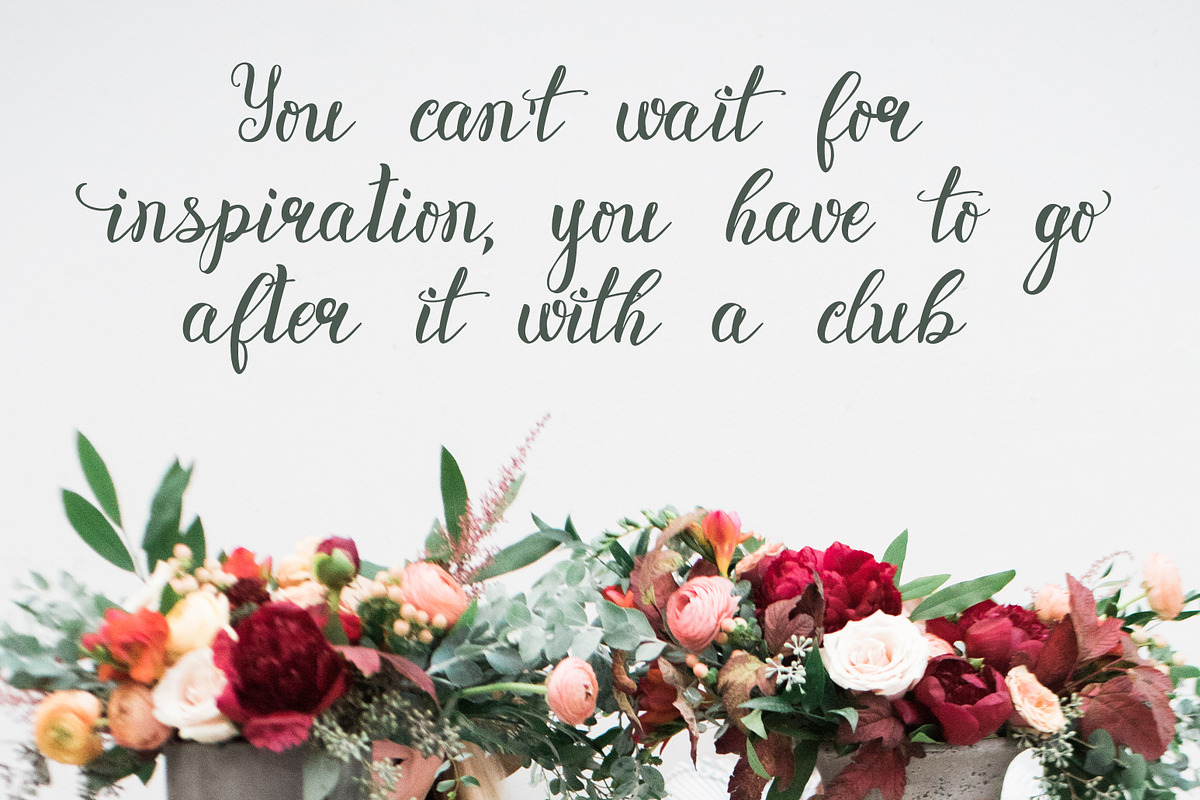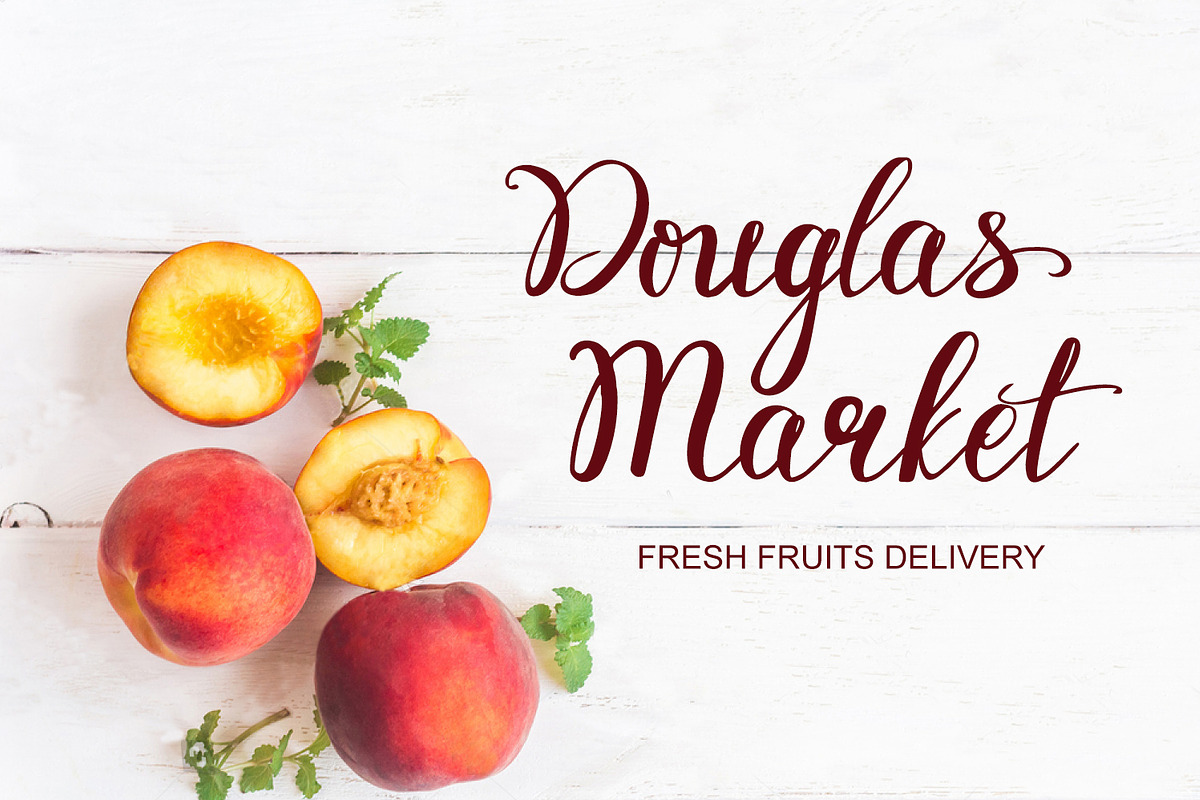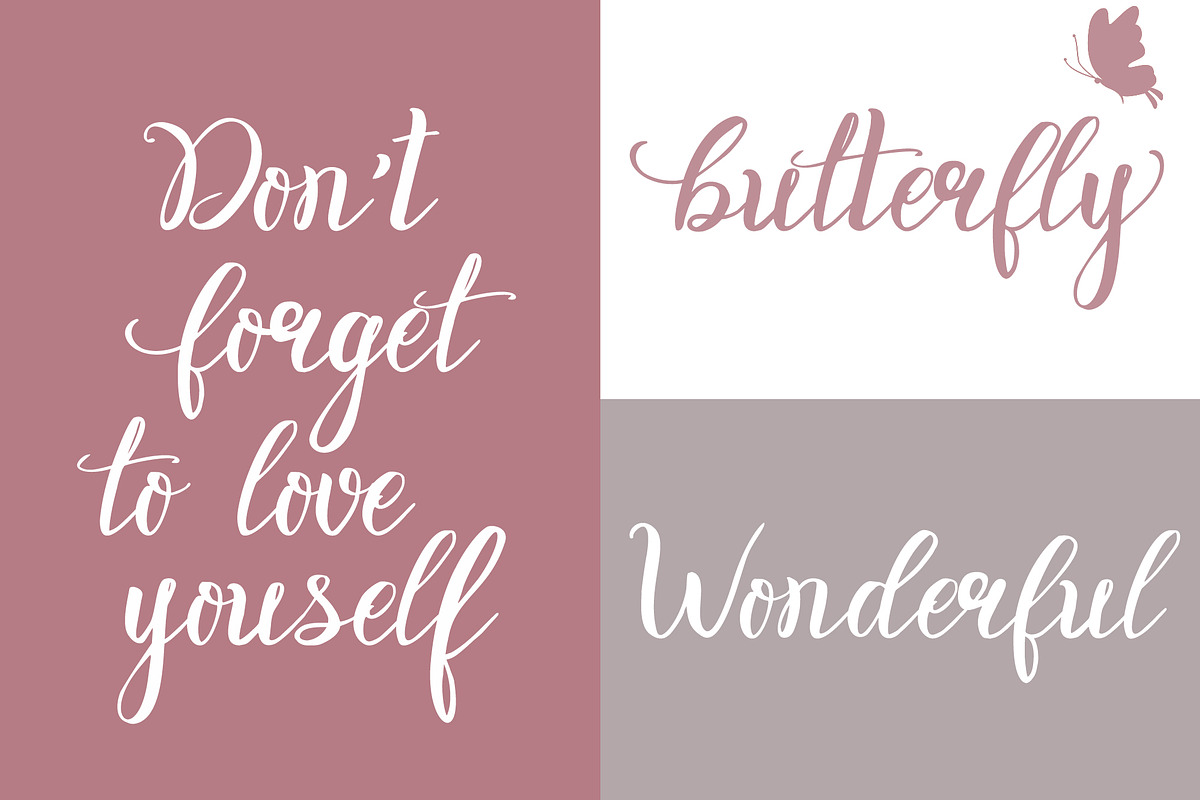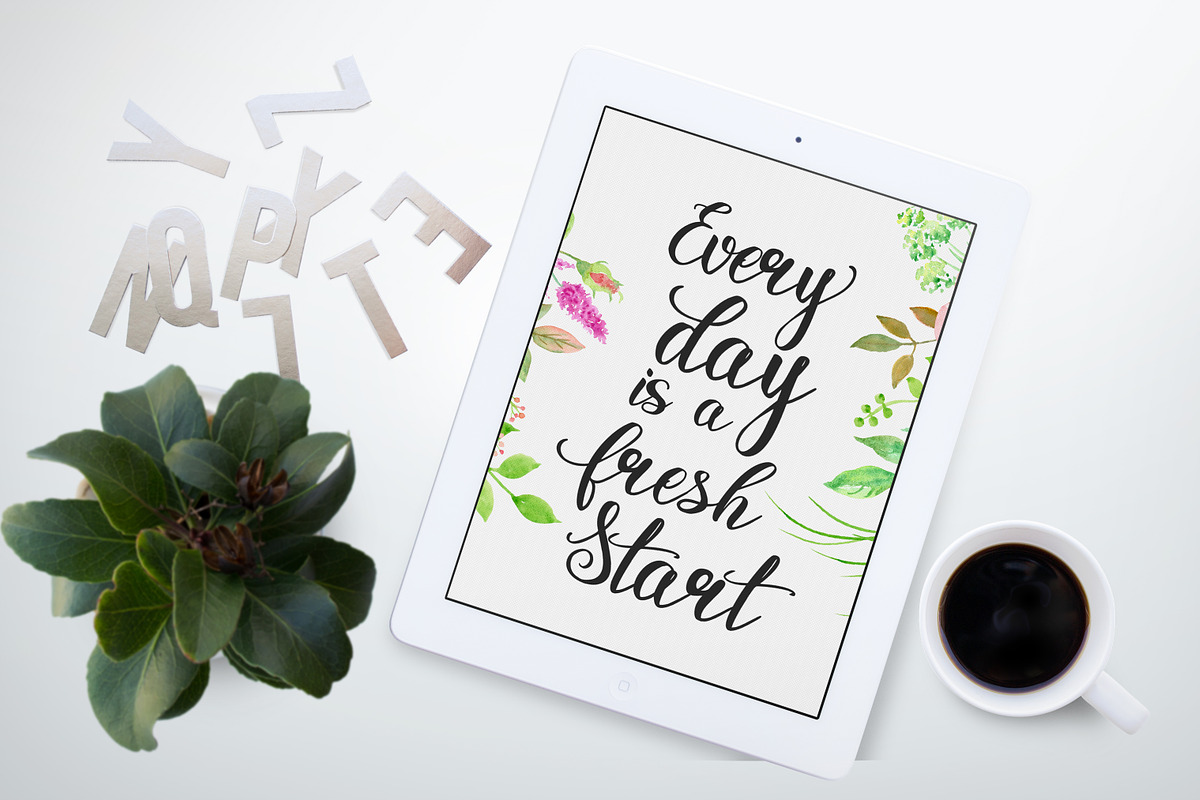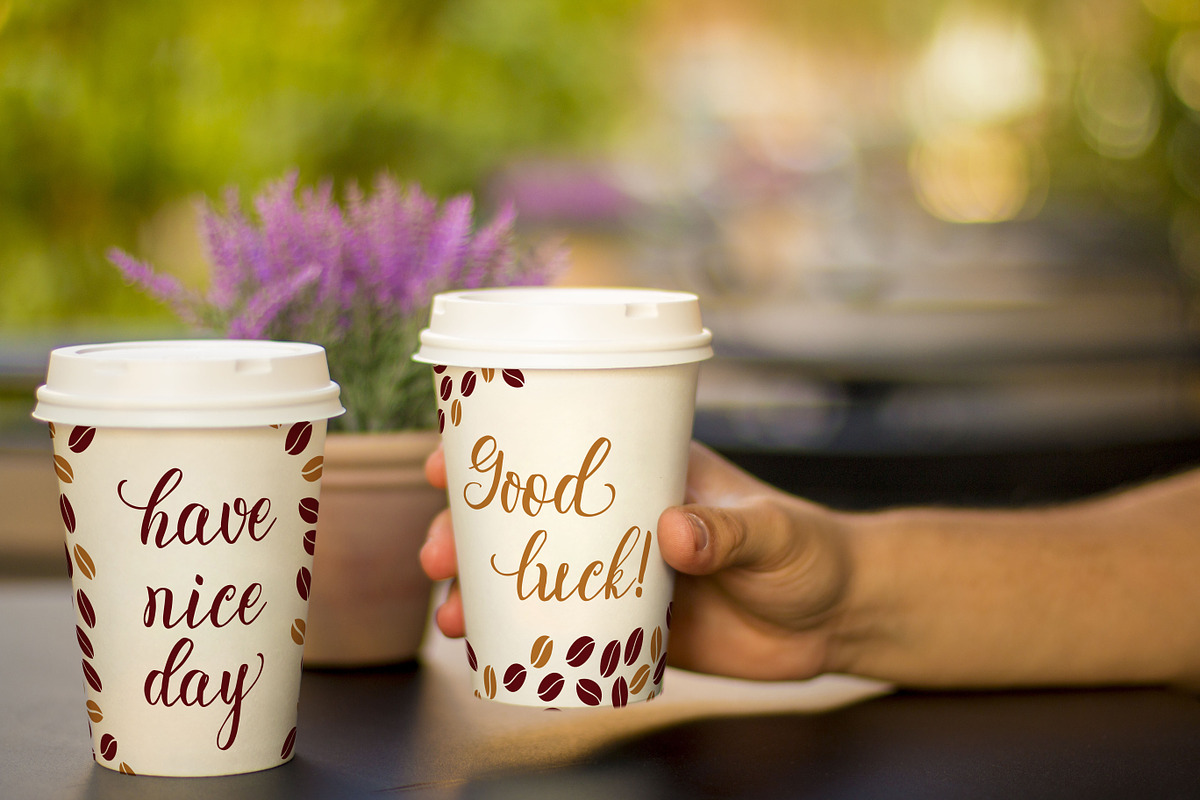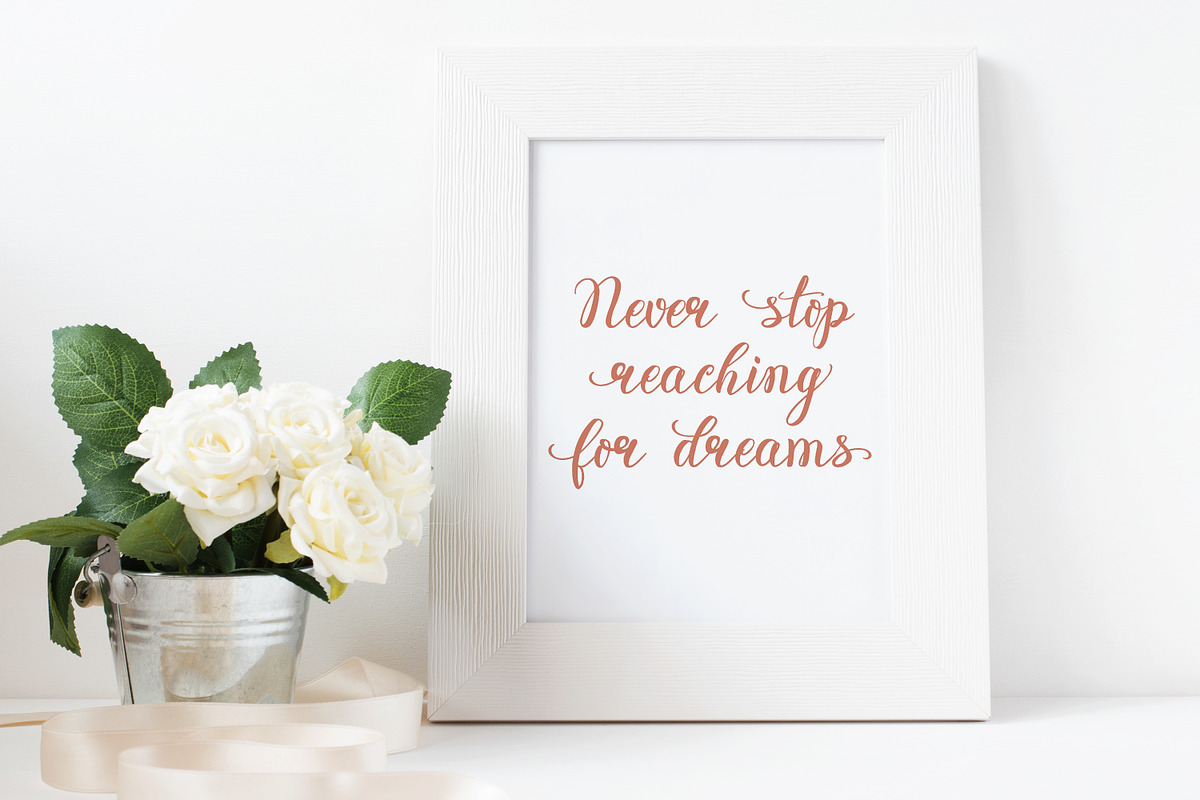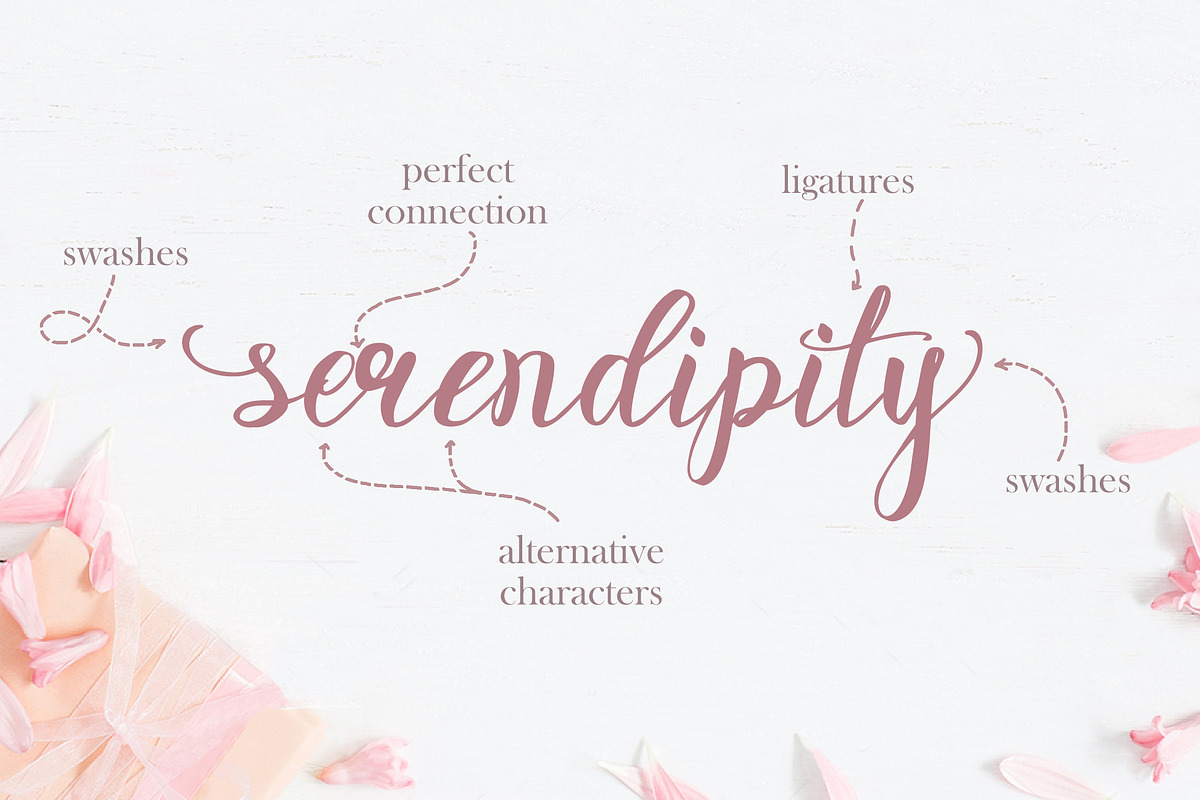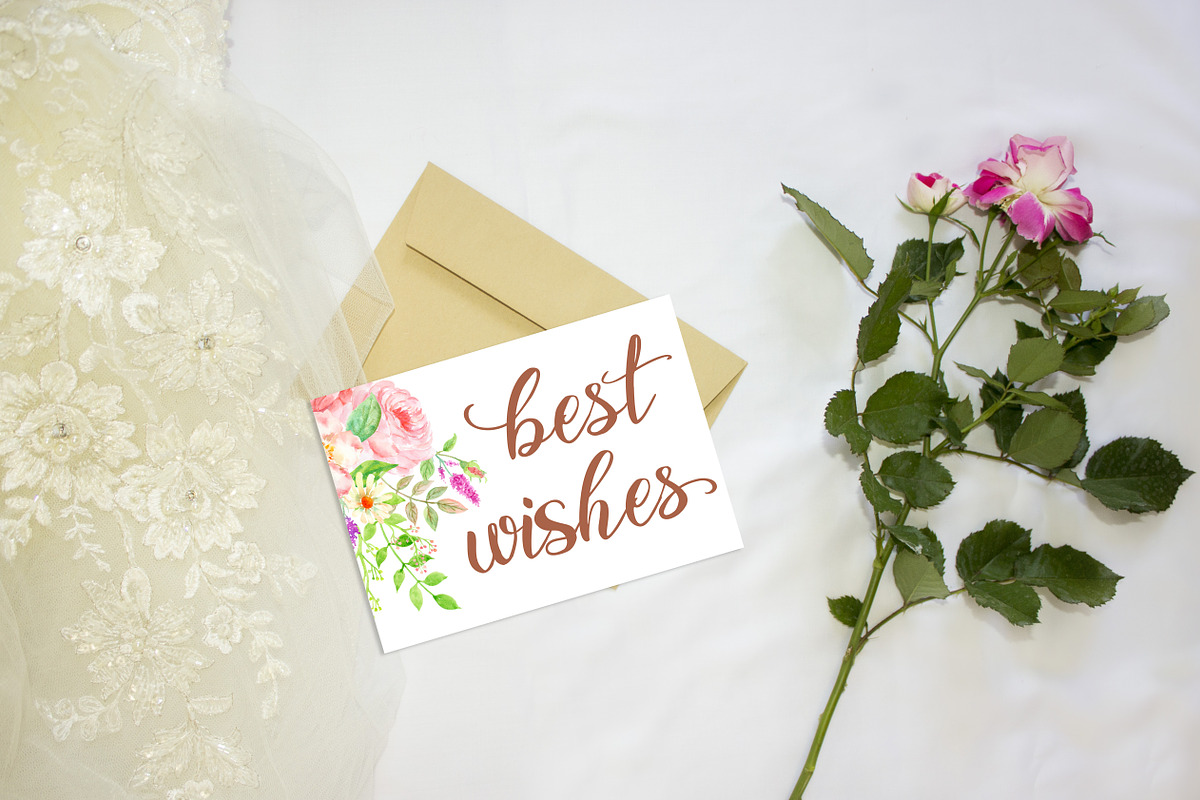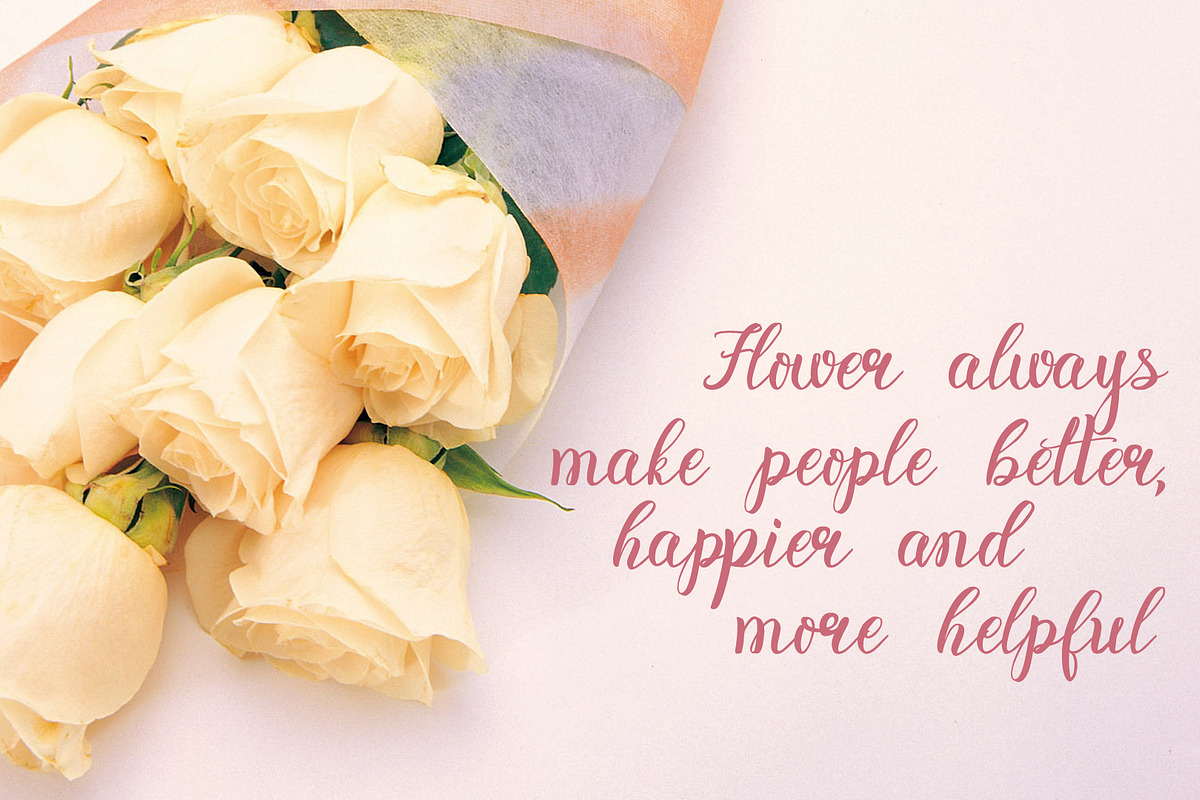
Rosita script - stylish brush font
I present to you a Rosita Script is a modern brush font.
This font can be used easily and simply because there are a lot of features in it to contain a complete set of letters lower and uppercase letters, assorted punctuation, numbers, and multilingual support.These characters are accessible via software with a glyphs panel.
Simply Rosita Script makes custom lettering a dream thanks to all the little extra decorative options you can include for a pretty and unique customisation.
Perfect for greetings, branding, prints, invitations, and crafting, print, t-shirt design, to personalised logos, handwritten quotes and so much more!